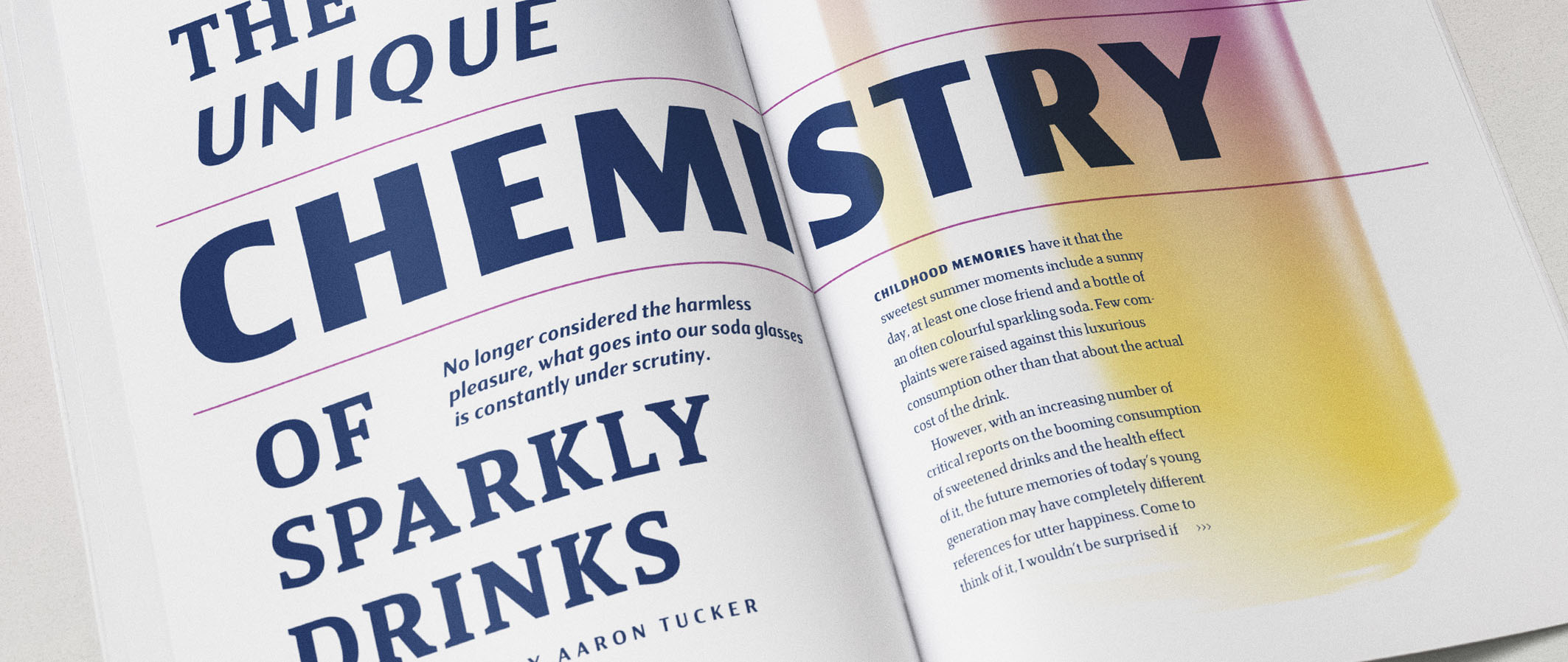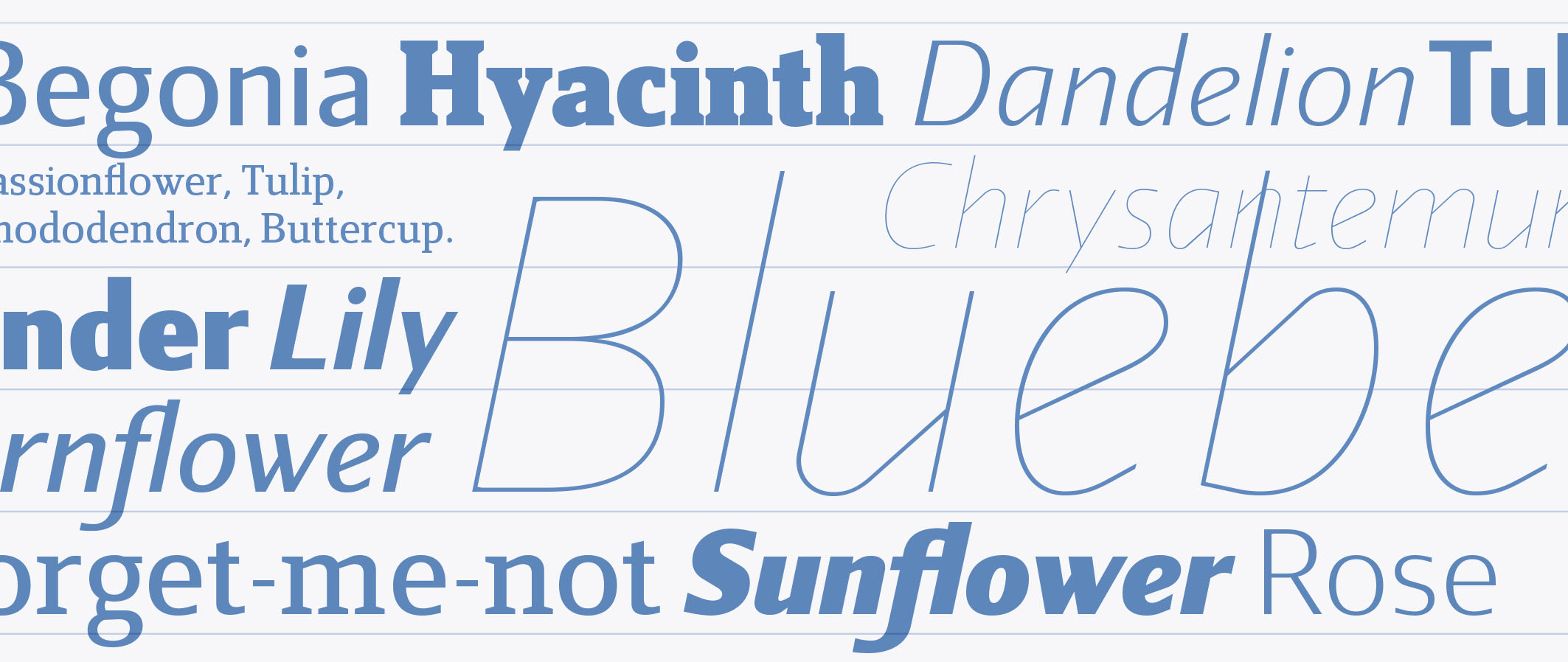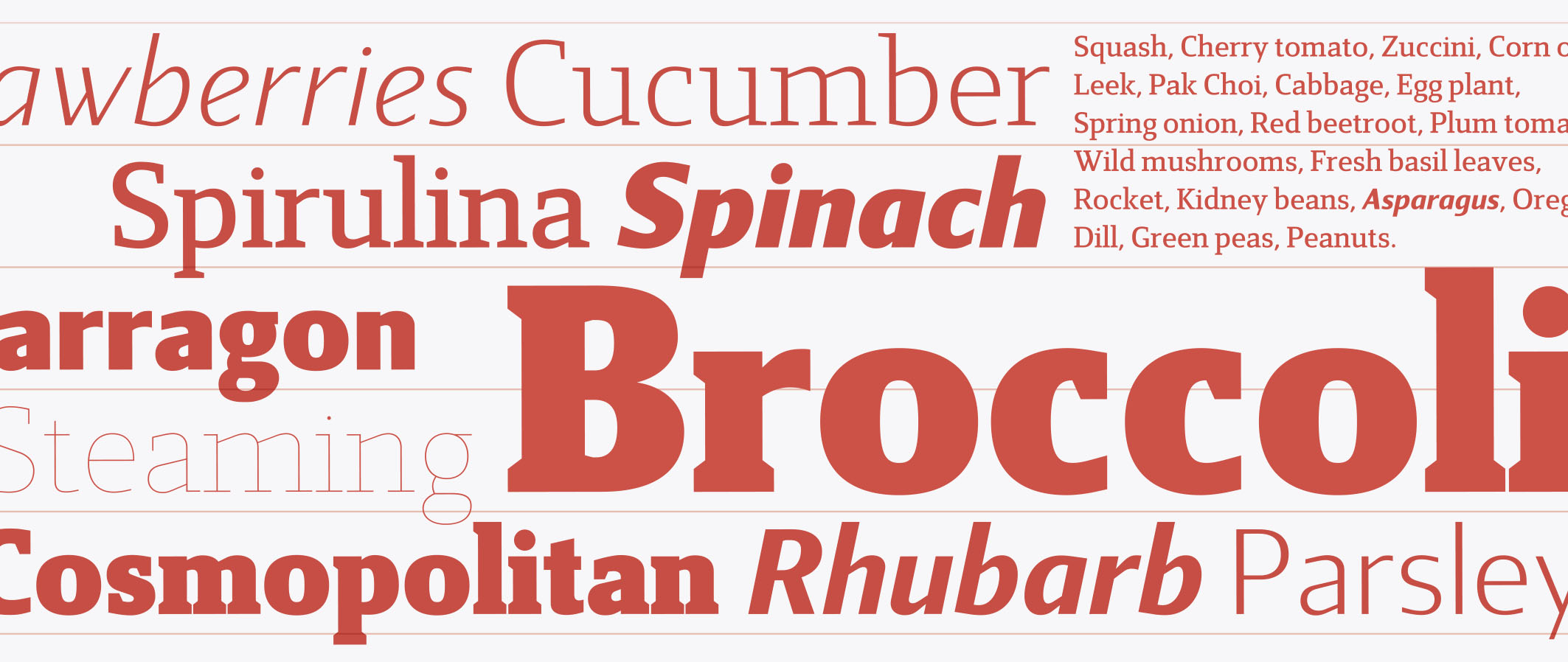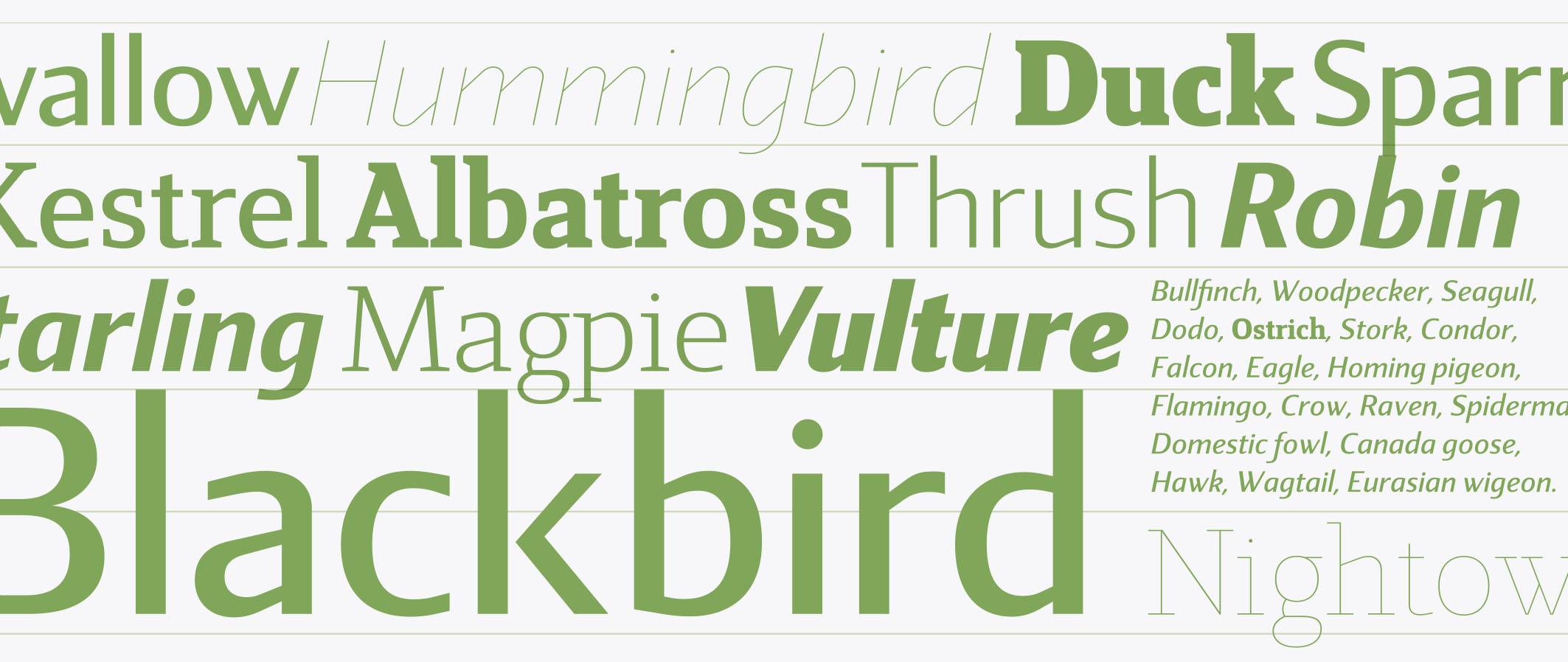
Reba Samuels II
Reba Samuels is based on the 2007 release Rebecca Samuels. Rebecca was largely intended for text use. Reba is more versatile with an extended weight scope and added cut varieties. Rebecca’s slab character is developed in the Reba serif, but the ’seriffed’ italic of Rebecca is abandoned in favor of a simple italic sans, better matching the serif in plain text.
The weight extremes are useful for headlines while the middles do better in text. The robust and angular shapes of the serif match the straightforward sans. The extreme contrast between the thin and the black cuts opens up great opportunities in any design project.